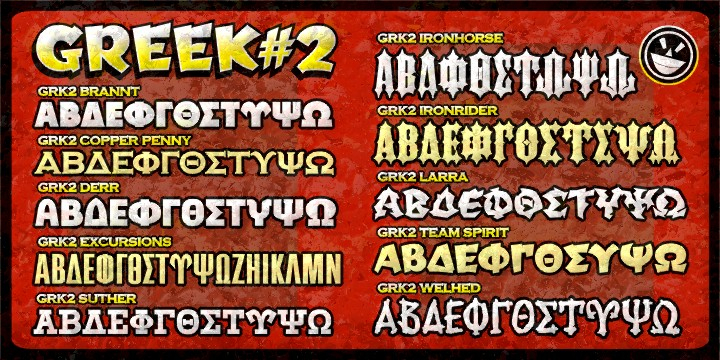
Greek Font Set 2
Greek Font Set 2 is a novelty font family. This typeface has eleven styles and was published by The Fontry.
More Greek alphabets for the fraternity and sorority set.
More Greek alphabets for the fraternity and sorority set. Greek Fonts #2-!!! A serious sequel to our Greek Fonts #1-!!! Arriving with 11 fonts in one pak, and just like our first Greek fonts, you don’t just get Greek characters. Romans get in on the act too, and numbers and punctuation—a full range of keyboard characters to see all of your layout needs done fast and done right.
Please note that this is not a Greek language font. The Greek Fonts #2 “Greek” range consists of only 24 uppercase Greek characters in the “uppercase” keyboard position. “Roman” characters can be found in the “lowercase” range. Numbers and punctuation can be found in standard keyboard positions.